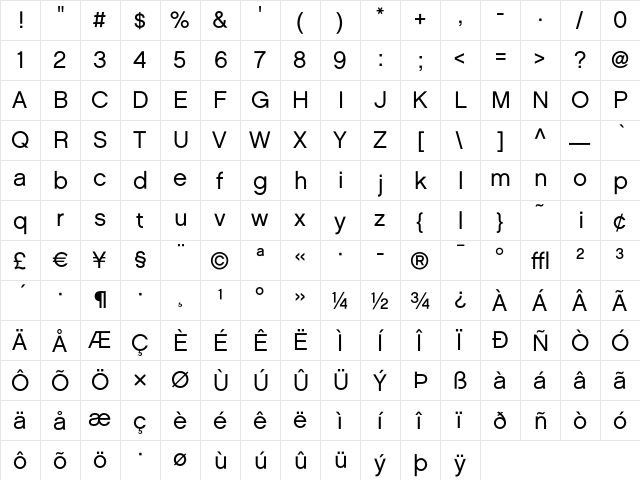
Chalet LondonNineteenSixty
| Designer | House Industries |
Design Context for Chalet Typeface
Chalet takes a measured approach to typography — its balanced proportions and neutral character make it a reliable workhorse for both digital and print work.
Pro Tip: Pair Chalet with a font of contrasting weight or personality to build a more expressive typographic hierarchy.